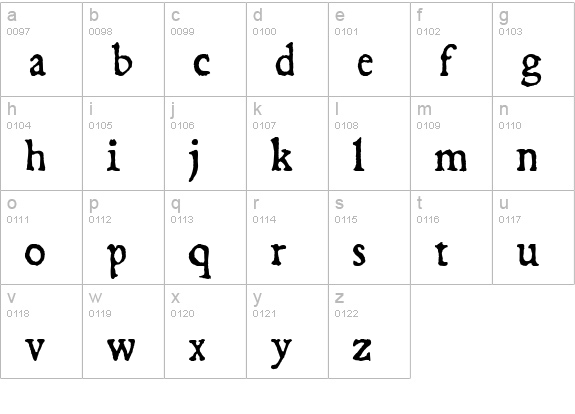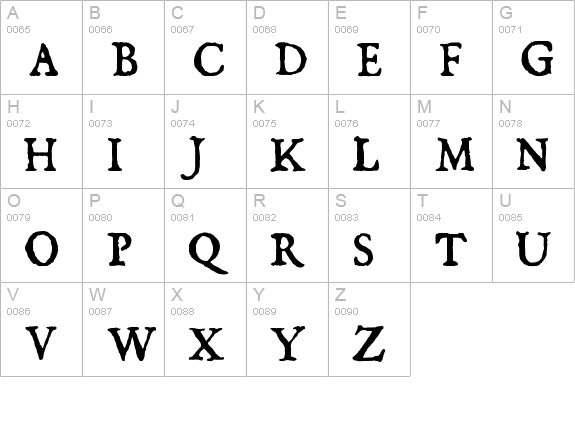
The Dominican font is a stunning typeface that seamlessly marries elegance and readability. With its graceful curves and classic appeal, this font is a versatile choice for a wide range of design projects. Whether you are creating invitations, posters, logos, or branding materials, the Dominican font will add a touch of sophistication to your work. The best part? The Dominican font is available for free download at FontsMarket.com! This means you can easily access this exquisite typeface without breaking the bank. Don't miss out on the opportunity to elevate your designs with the timeless beauty of the Dominican font. Download it today and see the difference it can make in your projects.